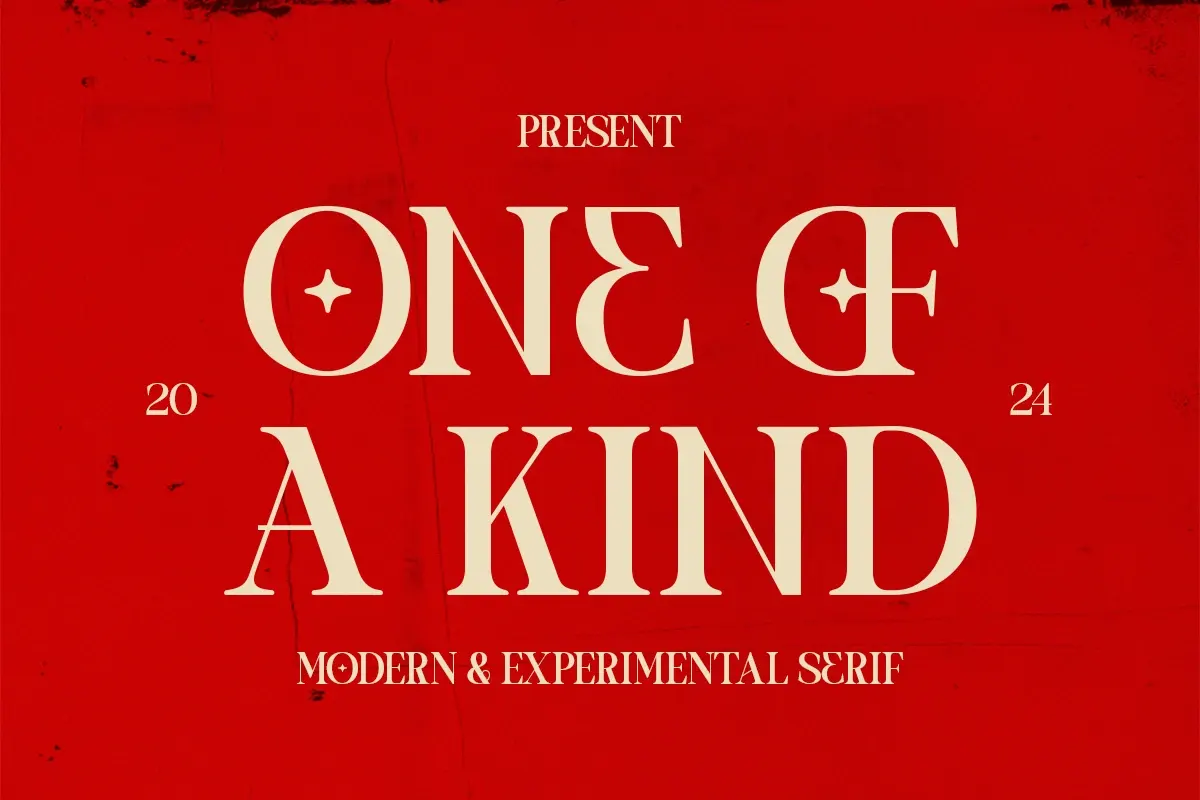
One of a Kind | Serif Font Free Download is a distinctive and elegant serif typeface crafted to bring uniqueness and sophistication to any project. With refined curves, high-contrast strokes, and stylish ligatures, this font is perfect for branding, editorial design, wedding invitations, fashion labels, and luxury packaging.
Designed to stand out, One of a Kind Free Download blends timeless serif structure with modern details, giving your typography a polished yet personal feel. It performs beautifully in both headlines and body text, making it a versatile tool for designers seeking elegance and character.